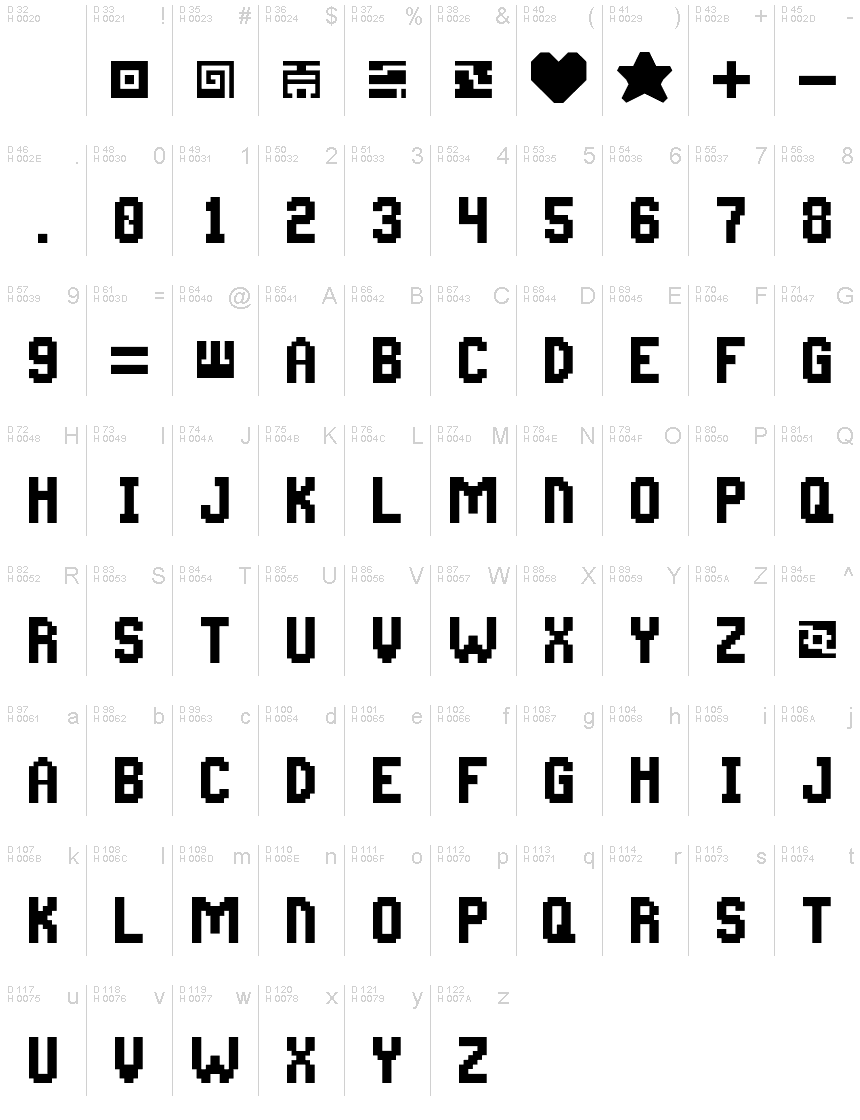
Bionicle training card font 2.4 Regular
Bionicle training card font is a bold pixelated typeface designed by phillipPbor.
Those are prototype for the card game.
Founts for the words of the cards.
Just so you know that its a fan made bionicle game.
Those are prototype for the card game.
Founts for the words of the cards.
Just so you know that its a fan made bionicle game.
“Bionicle training card font 2.4” was built with FontStruct
Designer description: Just a font I had to experiment on